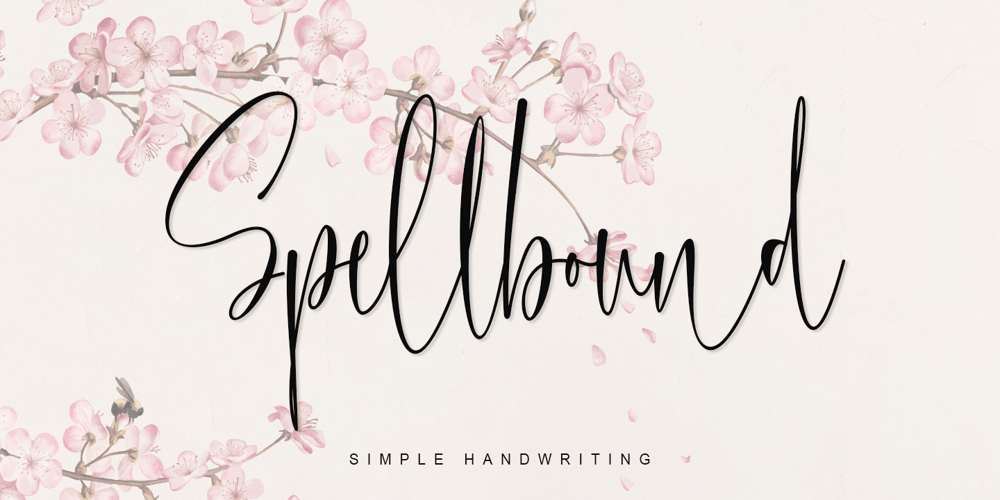
Spellbound Font Family was designed by Stefani Tri Rosa Setiati Christiana and published by Stefani Letter. Spellbound contains 2 styles and family package options. Spellbound is a beautiful light handwritten font with a unique feel and looks stunning. It will add a luxury spark to any design project! This font is PUA encoded which means you can access all of the amazing glyphs and ligatures with ease!